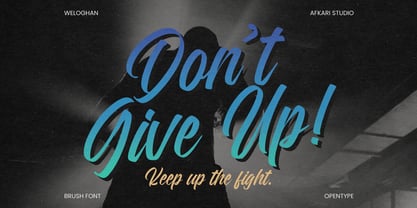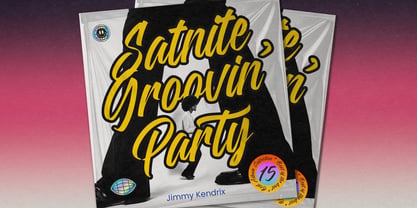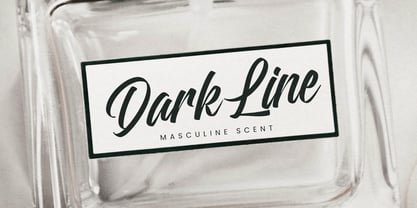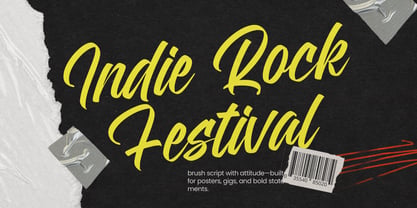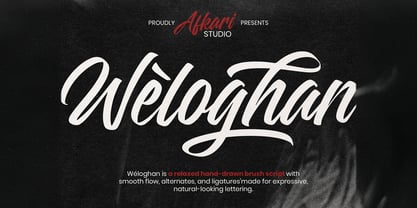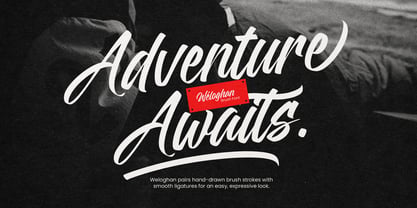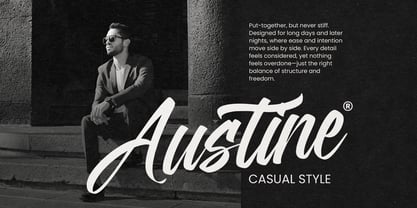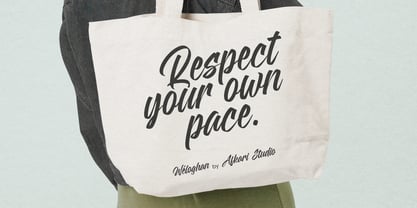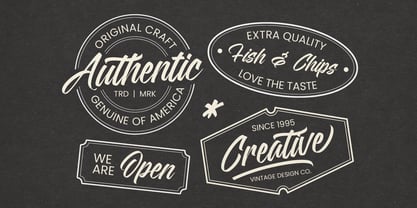
Weloghan
by Afkari Studio
The Weloghan Font Family was designed by Musthafa Kamal Emje and published by Afkari Studio. Weloghan contains 1 styles. More about this family
Weloghan is a smooth handwritten script font crafted to create expressive, natural-looking lettering. Designed with elegant flow and organic strokes, this font captures the beauty of real handwriting while maintaining clarity and balance for modern design use. With carefully built flowing connections, alternates, and ligatures, Weloghan allows letters to interact naturally—giving your text a dynamic, authentic feel. Each word looks handcrafted, fluid, and full of personality, making it perfect for designs that require warmth, emotion, and elegance. Weloghan is ideal for creatives who want typography that feels natural, expressive, and beautifully handwritten. Why Weloghan Stands Out Organic Flow: Every character is balanced to ensure the connections feel uninterrupted, mimicking the natural speed and pressure of a master calligrapher’s hand. Expansive Ligature Set: Say goodbye to repetitive, robotic lettering. Weloghan features custom ligatures that automatically tuck letters together, creating that sought-after "custom-lettered" look. Expressive Alternates: With a deep library of stylistic alternates, you can swap out standard characters for flourished versions, allowing you to tailor the "energy" of your text—from understated chic to bold and dramatic. Buttery Smooth Contours: Cleaned and optimized for both web and print, the paths are silky smooth, ensuring your designs look crisp at any scale. Features; - Uppercase, Lowercase, Number, and Punctuation - Special Alternates and ligatures - Works on PC & Mac, Simple installations - Accessible in Adobe Illustrator, Adobe Photoshop, Adobe InDesign, and even work on Microsoft Word - PUA Encoded Characters – Fully accessible without additional design software. - Mültîlíñgúãl Sùppört for; ä ö ü Ä Ö Ü ß ¿ ¡ Create elegant, expressive typography with Weloghan – Handwritten Script Smooth Font, where natural flow meets handcrafted beauty.
Designers: Musthafa Kamal Emje
Foundry: Afkari Studio